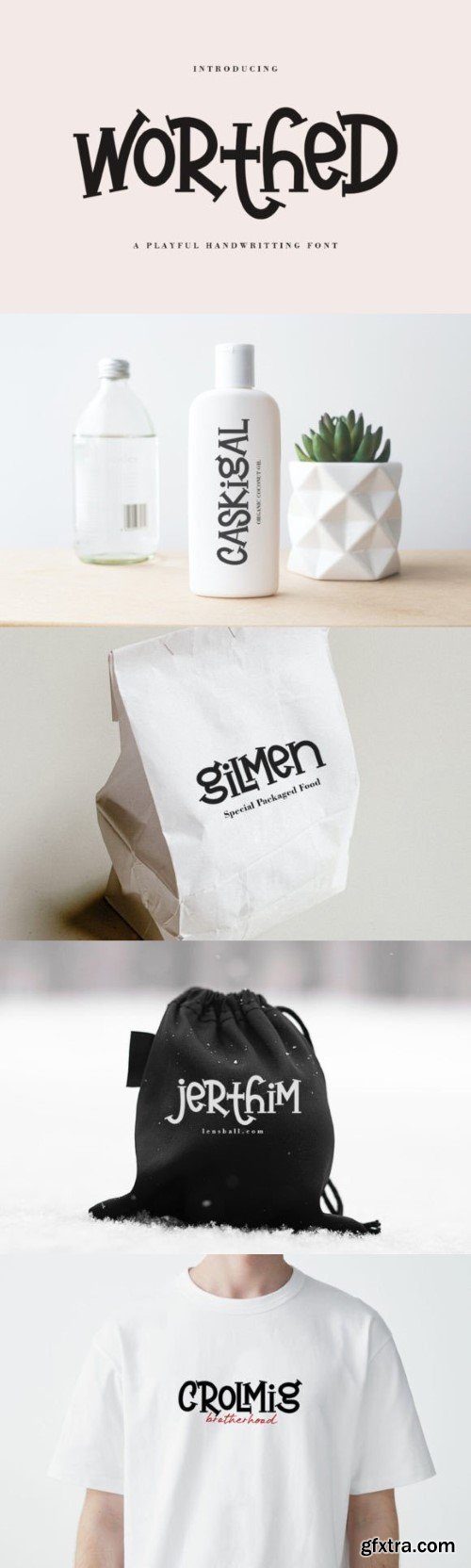
沃思德字体
Introducing Worthed font is a handwriting font with a sweet look and flourishing character. Worthed can be used for various types of design needs such as branding materials, social media, quotes, invitation, businnes cards, movie coverand more.